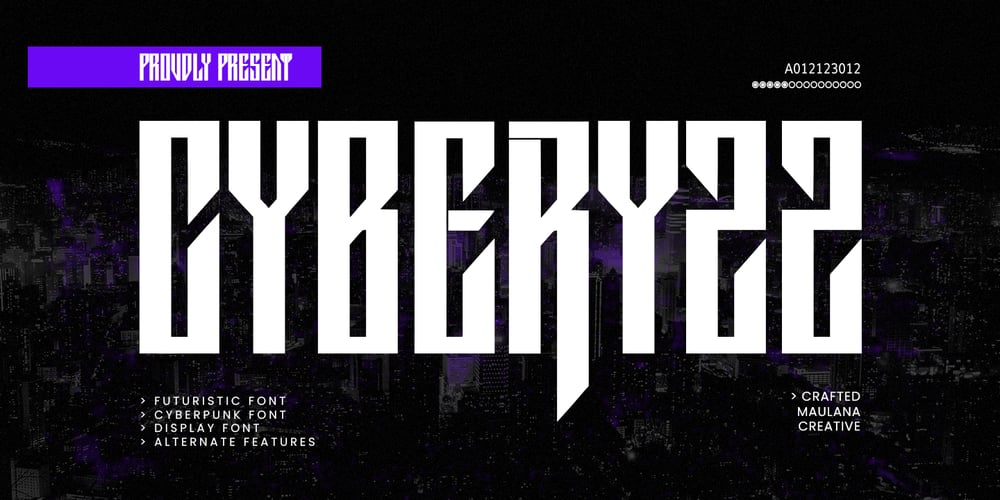
MC Cyberyzz Font Family was designed by Gilang Maulana and published by Maulana Creative. MC Cyberyzz contains 1 styles and family package options. Cyberyzz is a futuristic display font. With bold tall and rounded stroke, fun character with alternates. To give you an extra creative work. Cyberyzz font support multilingual language. This font is good for logo design, Social media, Movie Titles, Books Titles, a short text even a long text letter and good for your secondary text font with sans or serif. Make a stunning work with Cyberyzz font.Cheers,Maulana Creative